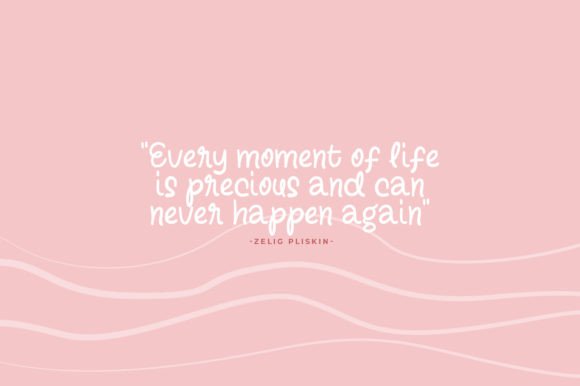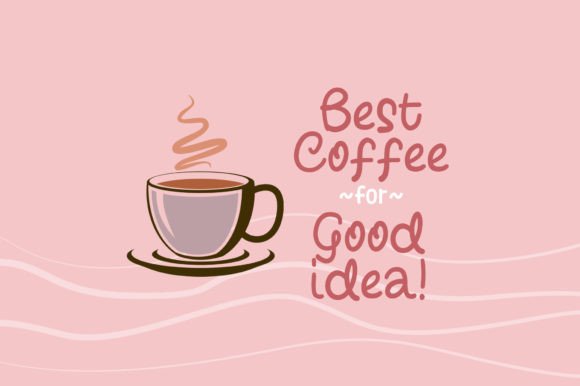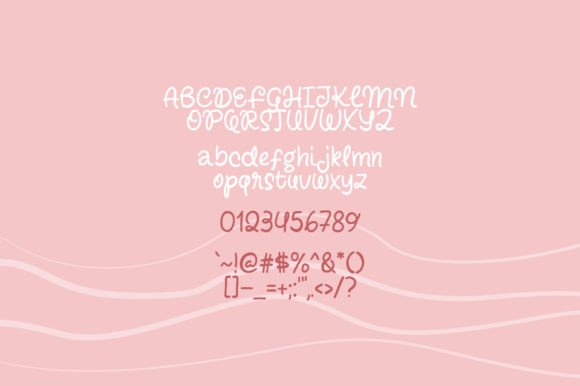
Introduction to Monday Angel Font
Have you ever stared at a blank canvas, searching for the perfect font to bring your creative project to life? I’m sure we’ve all been there – the blank page staring back, a sea of possibilities, and the pressure to create something truly special. But what if you stumbled upon a font that made all the difference? Enter the Monday Angel Font, a modern and adorable font designed to elevate your designs and make them truly shine.
Whether you’re working on a poster, logo, magazine cover, or book title, the Monday Angel Font is the perfect design resource to add a touch of whimsy and charm to your project. With its high-quality design and transparent background, this font is a game-changer for designers looking to create stunning visuals. And the best part? It’s available for free download, making it an invaluable addition to any creative arsenal.
- High-quality font with a unique and elegant design, perfect for creative projects.
- Designed to be versatile, suitable for use in various creative projects, from digital art to print materials.
- Unique characteristics include delicate lines and subtle nuances, adding a touch of sophistication to any design.
Honest Review: Monday Angel Font
The font itself is of high quality and offers a unique, elegant touch to any design. I particularly appreciated the transparent background option, which allowed me to seamlessly integrate it into my project.
- High-quality design that adds elegance to any project
- Transparent background option for easy integration
- May not be as versatile as other fonts on the market
- Some users may find the design too simplistic
Overall, I’m quite impressed with the Monday Angel Font. It’s a great design resource for anyone looking to add a touch of elegance to their project. With its high-quality design and transparent background option, it’s definitely worth checking out.
Getting the Most Out of Monday Angel Font
For the best results, use the Monday Angel Font on a high-quality design resource. Experiment with different font sizes and styles to create a unique and eye-catching design. The transparent background feature allows you to customize the background to match your design needs.
Common Use Cases for Monday Angel Font
The Monday Angel Font is perfect for a variety of creative projects, including wedding invitations, business cards, and social media graphics. Its high-quality design and transparent background make it a versatile design resource for any project.